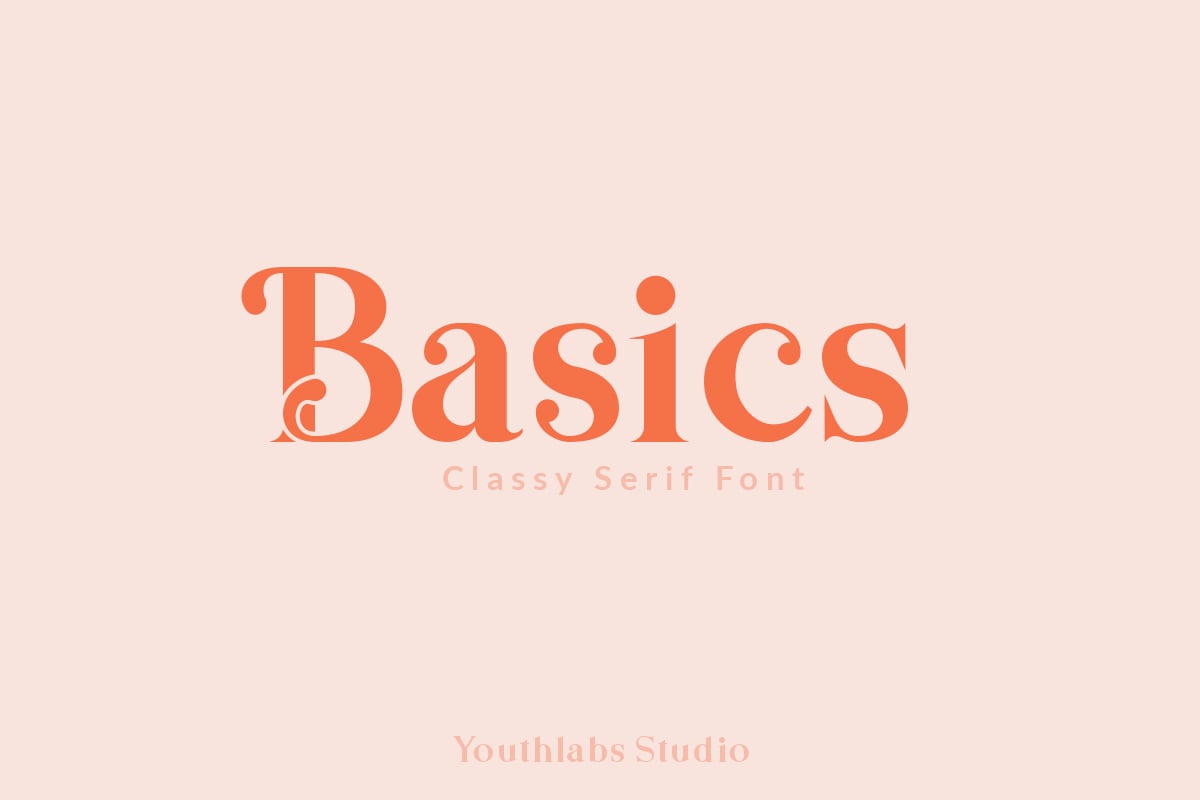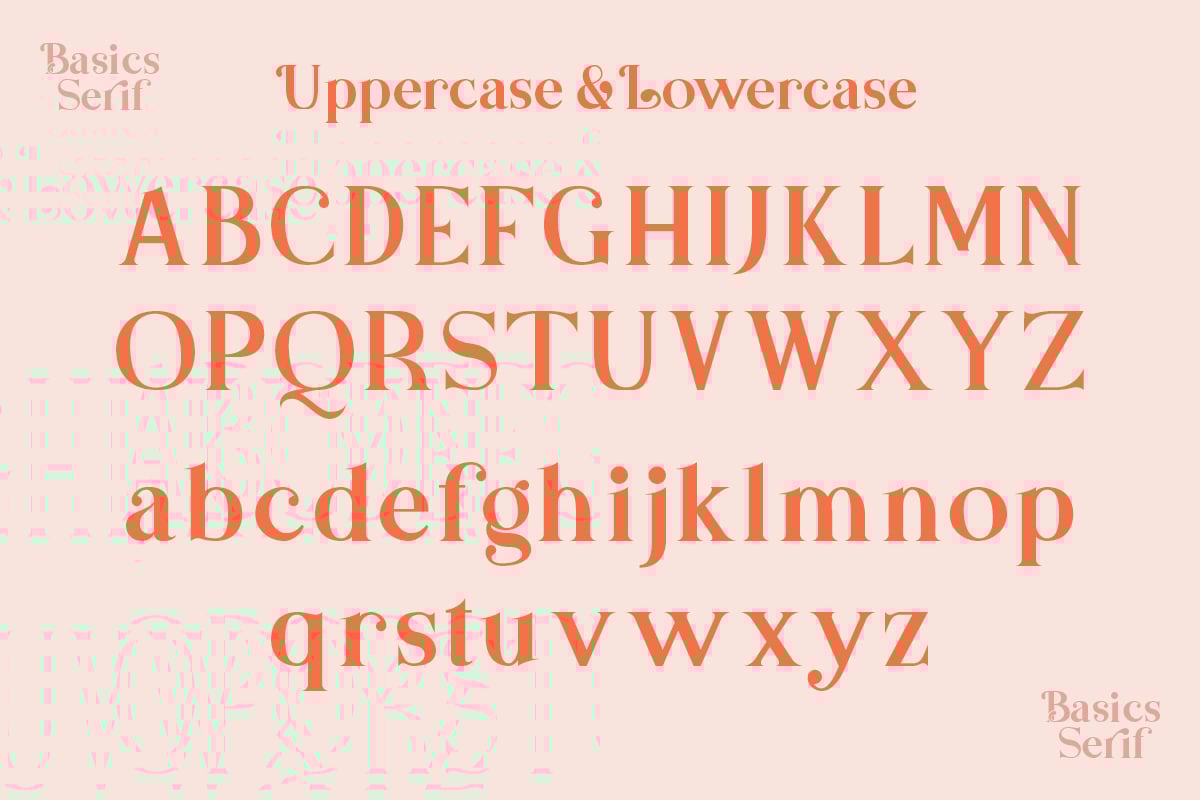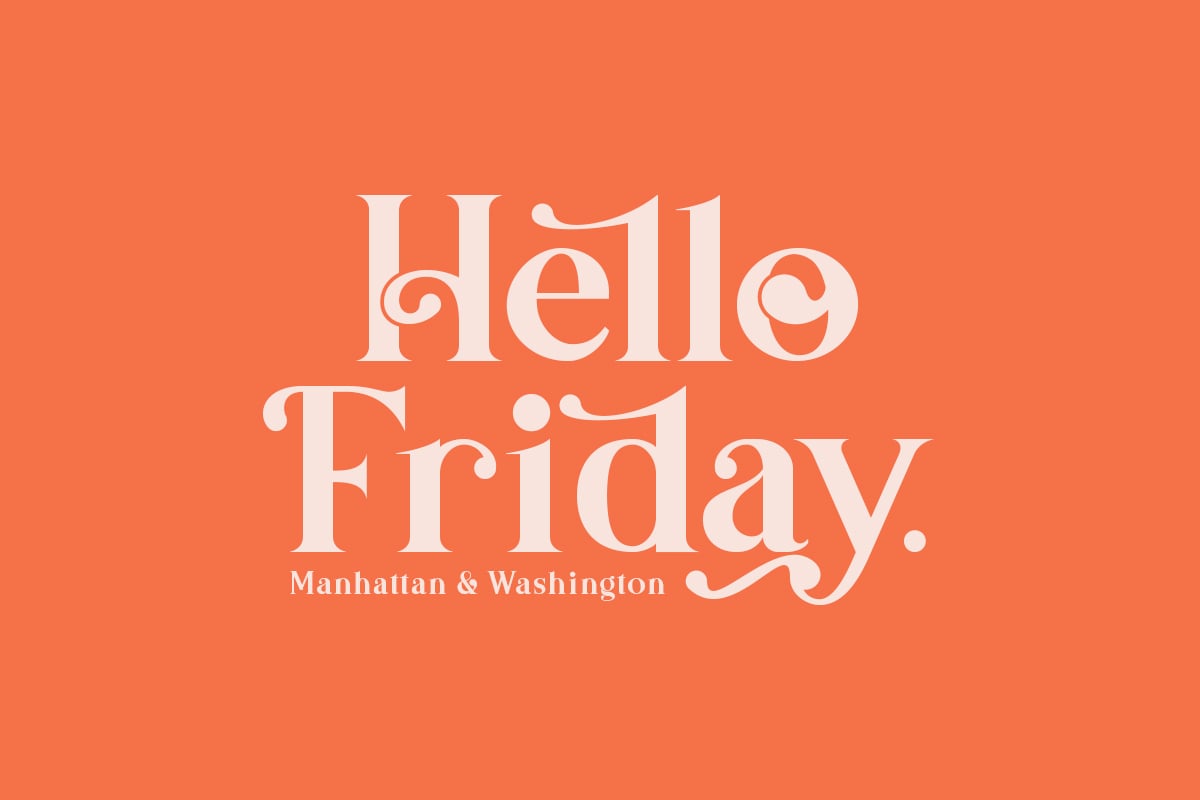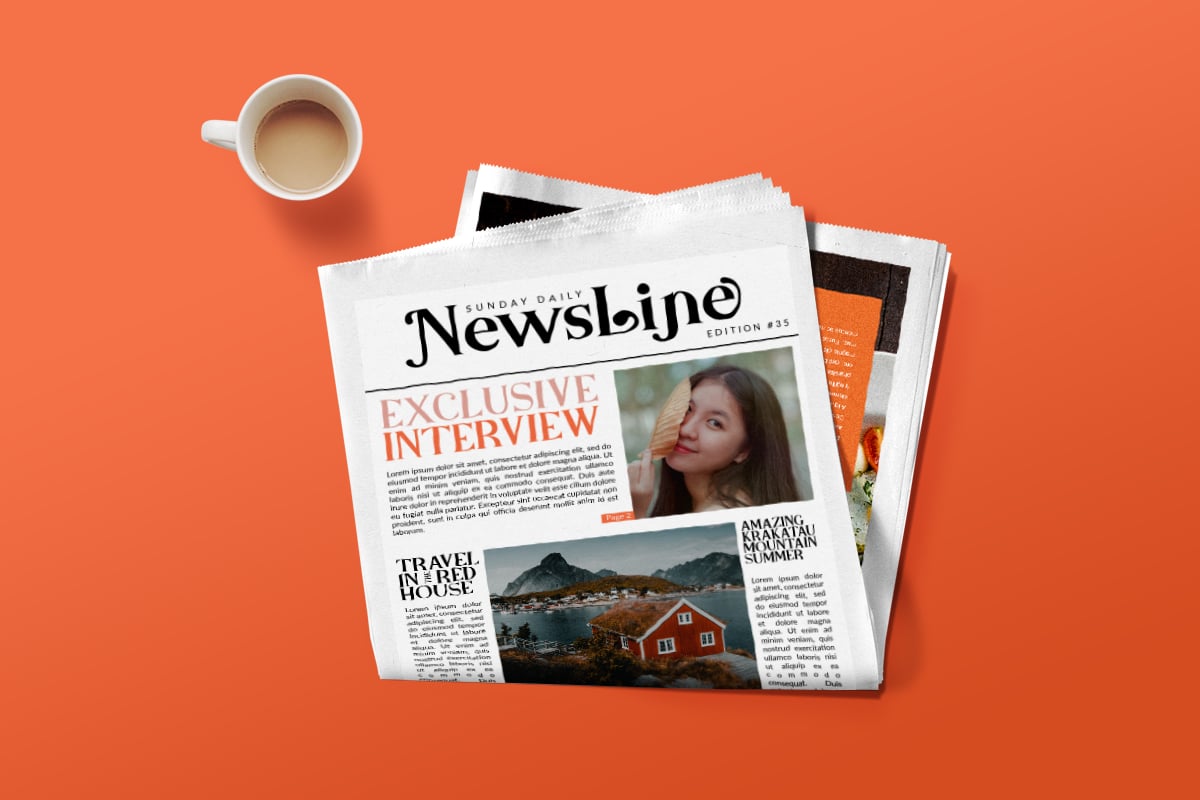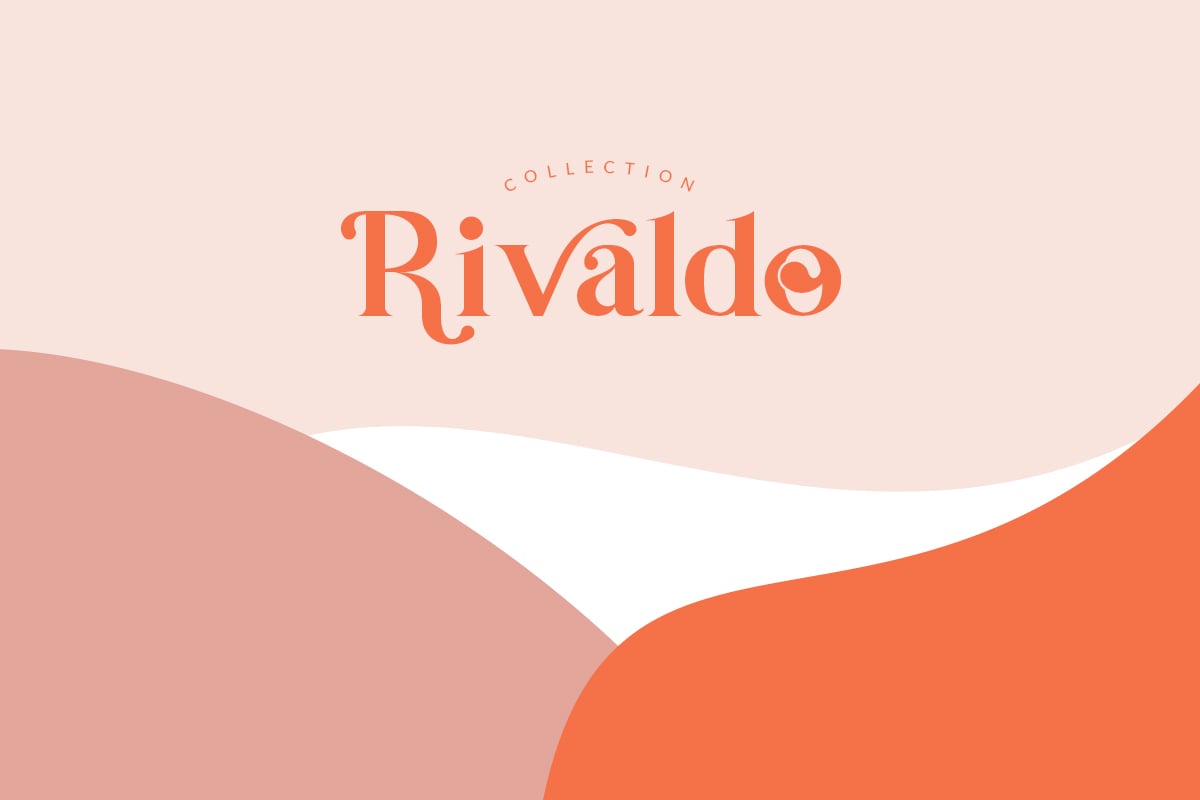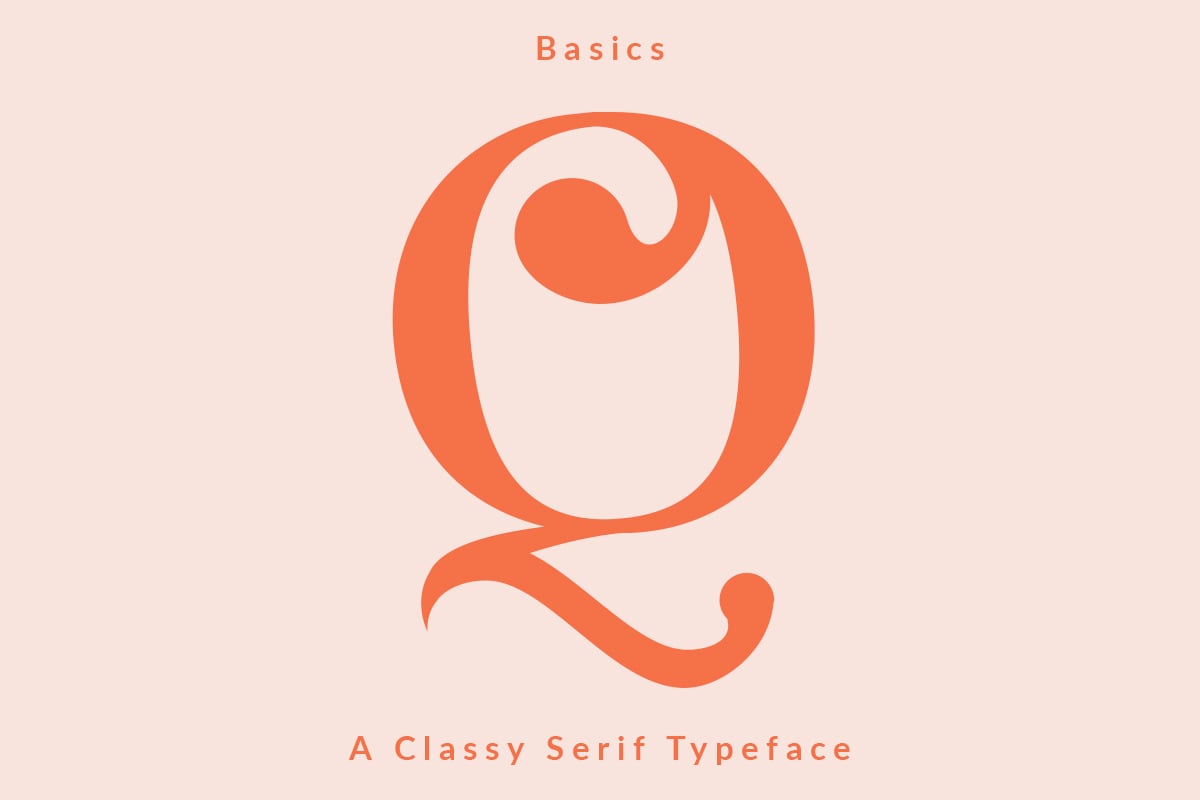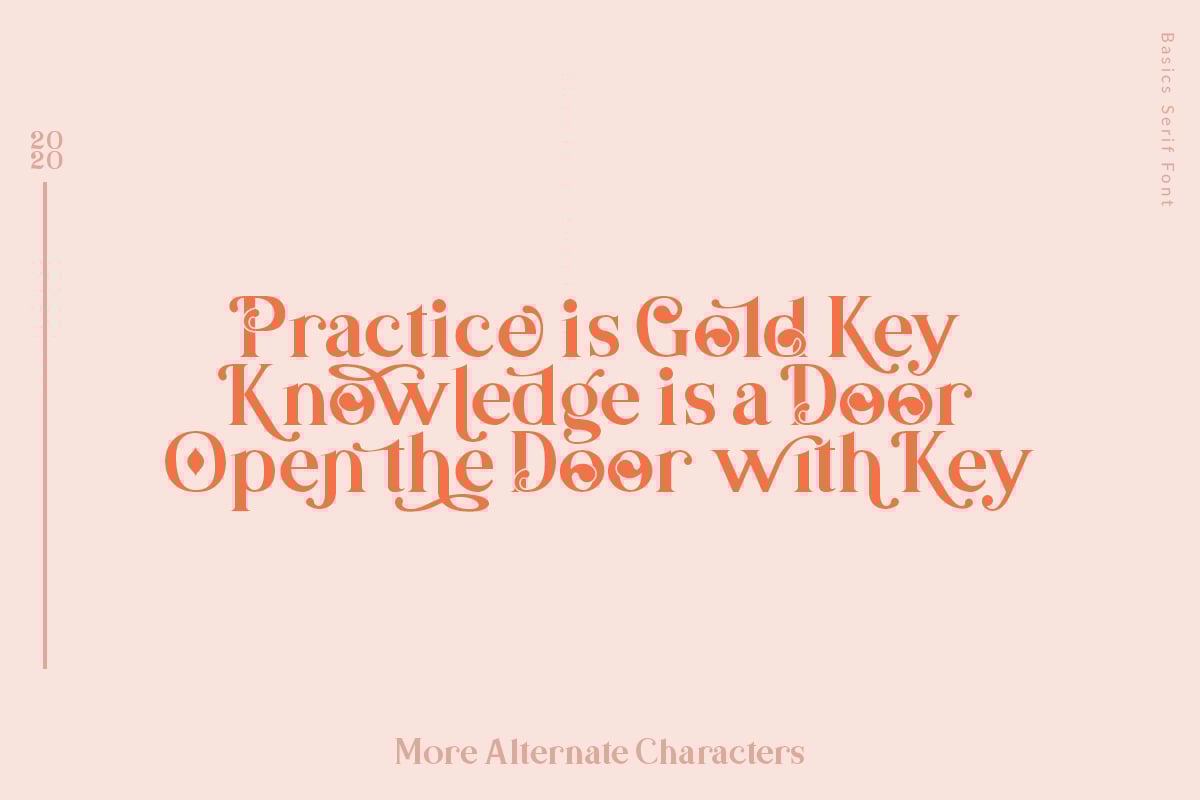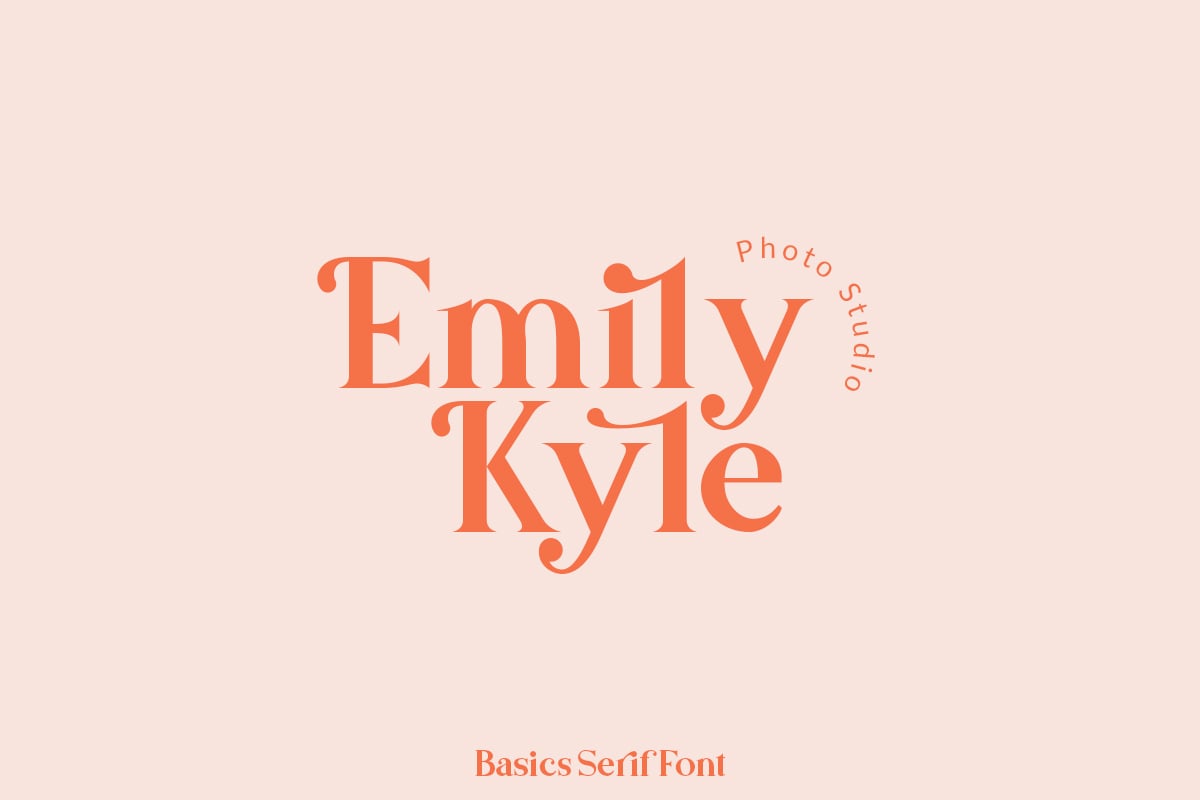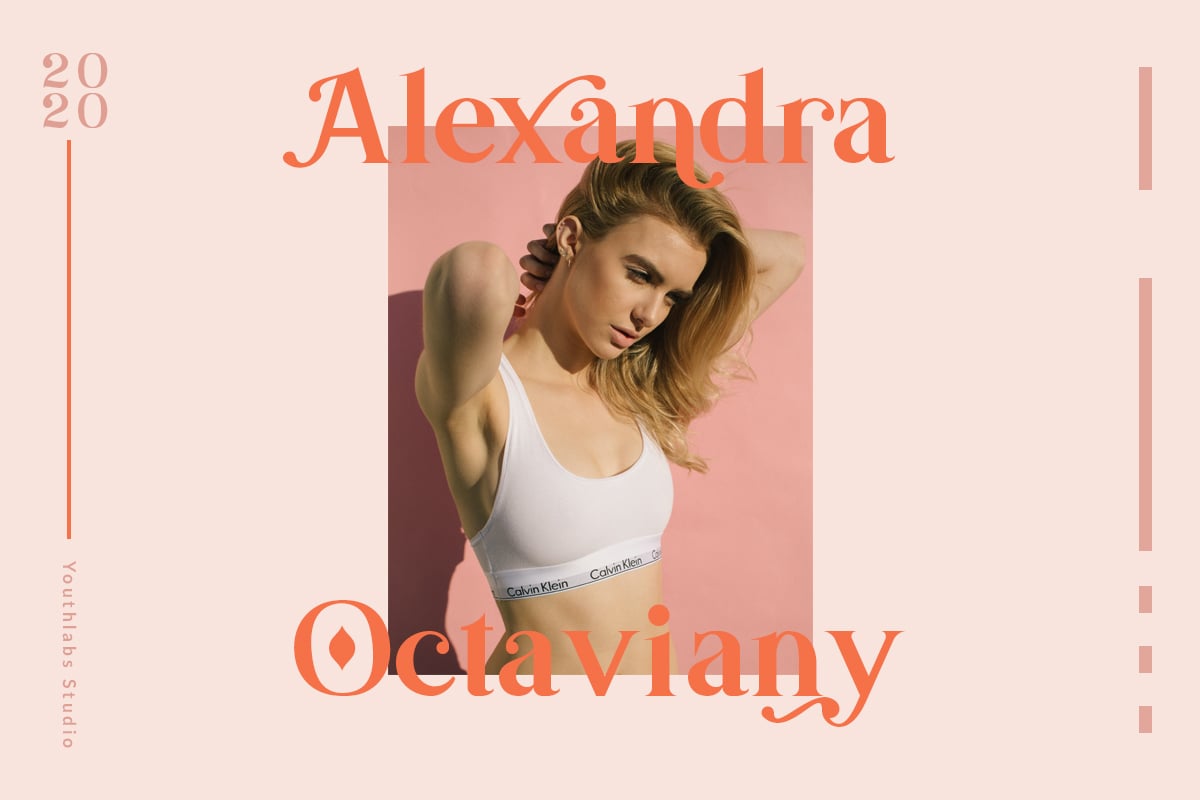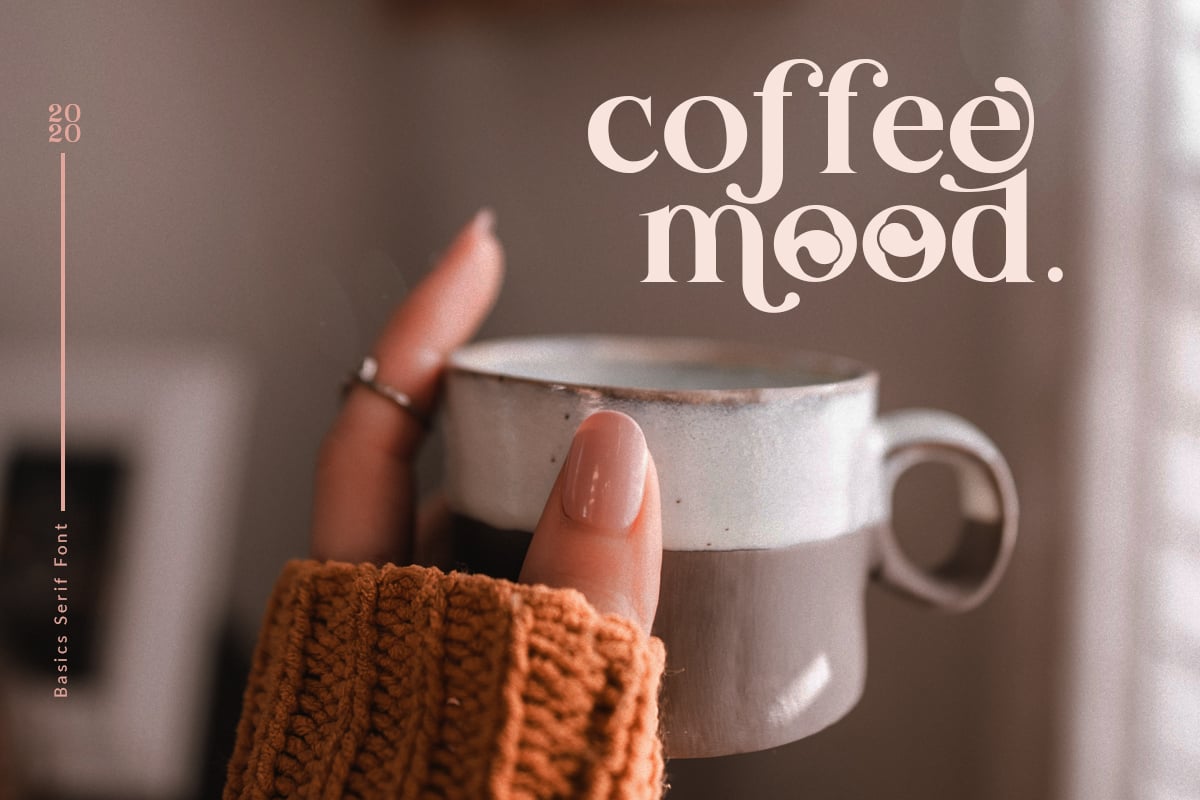
Basics – Classic Serif Font
Introducing Basics Serif Font – A Brand New Serif Font with Classy Curves, More Alternative Character, and Multilingual Support
Basics Serif Font Inspired by Fancy and Vintage Typography. Basics Serif Font is a very versatile font. you can use this font to make perfect various design. Basics Serif Font can improve more than 250 alternates character where is Alternate 1 – Alternate 10 Character
Basics Serif Font support 24 Language : Afrikaans Albanian Catalan Croatian Czech Danish Dutch English Estonian Finnish French Hungarian Italian Lithuanian Maltese Norwegian Polish Portugese Slovak Slovenian Spanisch Swedish Turkish Zulu
- More than 160 Uppercase Alternate
- More Than 120 Lowercase Alternate
- 24 Language Support